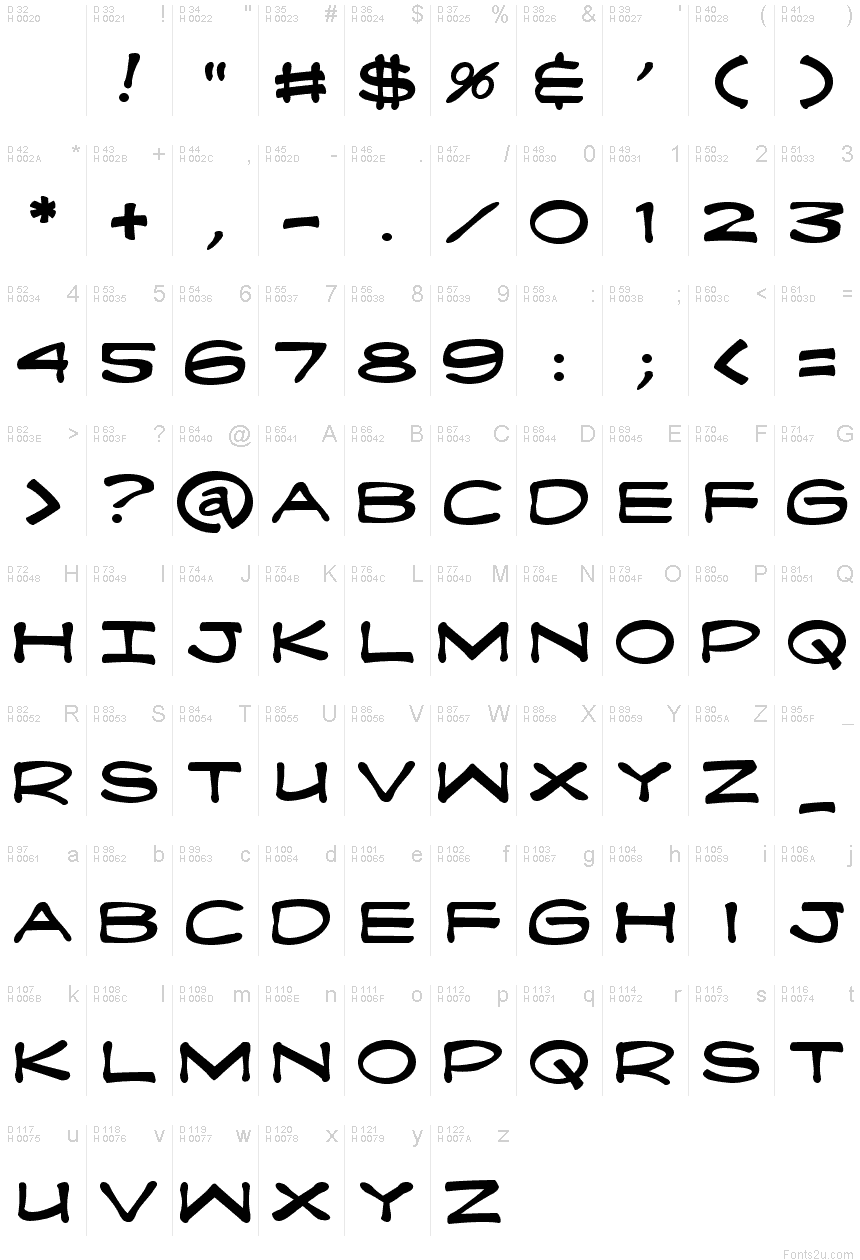
Fanboy Hardcore
Fanboy Hardcore font by Nate Piekos is a free handwritten typeface that looks like it was inked straight onto a comic page. Thick, rubbery strokes bulge and taper, with letters that lean and twist just enough to feel loud and a little unruly. The spacing stays tight and punchy, so words hit the eye like sound effects-bold, bouncy, and full of energy.
Using Fanboy Hardcore, you can give instant attitude to comic lettering, convention posters, fan zines, gaming overlays, YouTube thumbnails, or geek-culture merch. This free font shines when you run it large, letting those inky curves and chunky shapes really show. Pair it with a clean, neutral sans serif for body copy, and let Fanboy Hardcore handle the shouts, titles, and callouts.